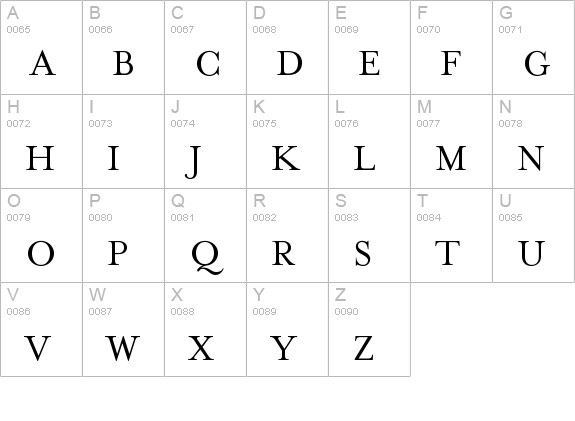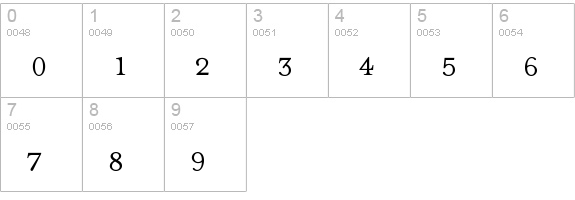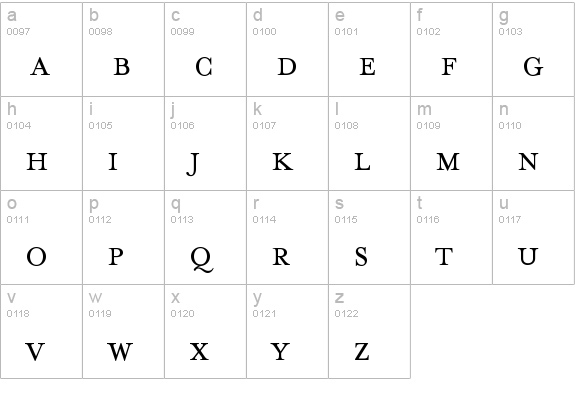
MrsEavesSmallCaps Font Details
MrsEavesSmallCaps is a charming and elegant typeface that exudes sophistication and timeless appeal. With its delicate small caps and graceful letterforms, this font is perfect for adding a touch of class to any design project. The clean lines and classic styling of MrsEavesSmallCaps make it a versatile choice for a wide range of applications, from wedding invitations to branding materials. What's more, MrsEavesSmallCaps is available for free download at FontsMarket.com, making it accessible to designers and creatives looking to elevate their work with a touch of refined elegance. Whether you're crafting a high-end logo or designing a stylish editorial layout, MrsEavesSmallCaps is sure to lend a touch of sophistication to your projects. Download it today and add a touch of timeless beauty to your designs.